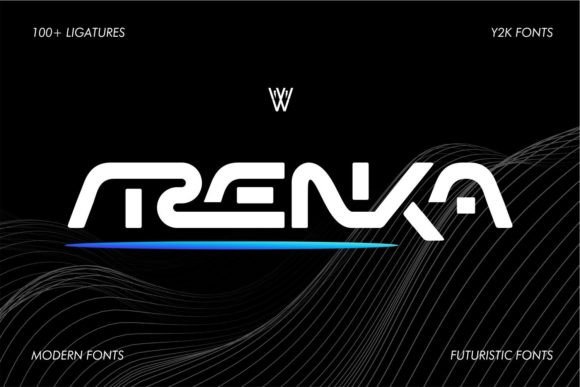
Reviving the Y2K Era: The Arenka Font Revolution
The world of digital art and design is no stranger to trends. The 2000s, in particular, was a decade that showcased a unique blend of modern technology and retro aesthetics. As we navigate the saturated market of modern technology, it’s clear that the old style has made a comeback. For digital artists and designers looking to revive the nostalgia of Y2K fonts, the Arenka Font is here to revolutionize the game.
The Birth of Arenka Font
As a response to the growing interest in retro-futuristic designs, the Arenka Font was born. This innovative font family is specifically designed to bring back the nuances of Y2K fonts, while incorporating modern twists to appeal to today’s digital artists. With a focus on nostalgia and futurism, Arenka Font aims to bridge the gap between old and new, giving designers the tools to create unique and captivating visual content.
Innovative Features of Arenka Font
So, what sets Arenka Font apart from other font families? For starters, it boasts an impressive collection of over 100+ ligatures and 100+ glyphs, providing designers with a wide range of creative possibilities. This extensive library of characters allows for greater flexibility and customization, making it easier to bring your design vision to life.
Arenka Font’s futuristic form has been carefully crafted to meet the demands of the modern market. Its sleek lines, geometric shapes, and bold typography evoke a sense of nostalgia while still feeling fresh and contemporary. Whether you’re working on a branding project, website design, or social media graphics, Arenka Font is the perfect choice for designers looking to make a statement.
Embracing Newstalgia
The concept of “Newstalgia” refers to the blending of old and new, where vintage aesthetics meet modern sensibilities. Arenka Font is perfectly positioned to tap into this trend, offering designers the opportunity to create content that resonates with audiences who crave a nostalgic experience. By combining the retro charm of Y2K fonts with modern nuances, Arenka Font enables designers to craft unique and engaging visual experiences that stand out in today’s crowded digital landscape.
Why Designers and Crafters Love Arenka Font
So, why should designers and crafters consider Arenka Font for their next project? Here are just a few reasons:
- Unique aesthetic: Arenka Font offers a distinctive blend of retro and futuristic elements, making it perfect for designers looking to create visually striking content.
- Highly customizable: With over 100+ ligatures and 100+ glyphs, designers have the flexibility to experiment with different typography styles and create truly unique designs.
- Perfect for digital artists: Arenka Font’s futuristic form and bold typography make it an excellent choice for digital artists looking to create stunning visual effects.
- Easy to use: Arenka Font is designed to be user-friendly, making it easy for designers to integrate into their workflow.
The Arenka Font is more than just a font family – it’s a movement. It’s a response to the growing demand for retro-futuristic designs and a nod to the nostalgia of Y2K fonts. With its innovative features, highly customizable design, and unique aesthetic, Arenka Font is poised to become a favorite among designers and crafters. Whether you’re looking to create stunning visual content, evoke a sense of nostalgia, or simply stand out in a crowded market, Arenka Font is the perfect choice. Join the revolution and experience the power of Arenka Font for yourself.